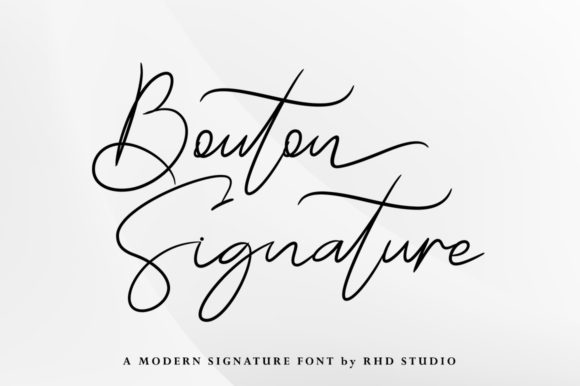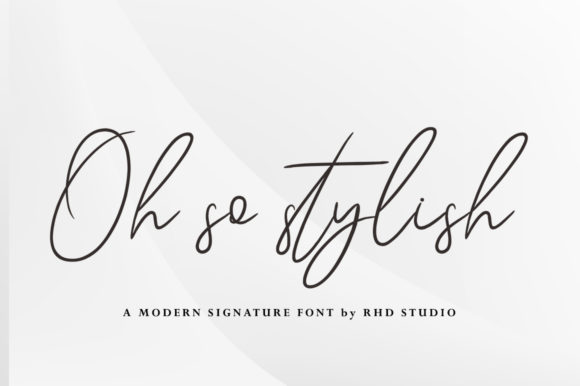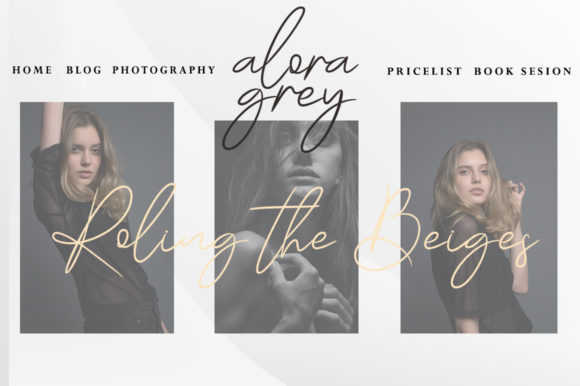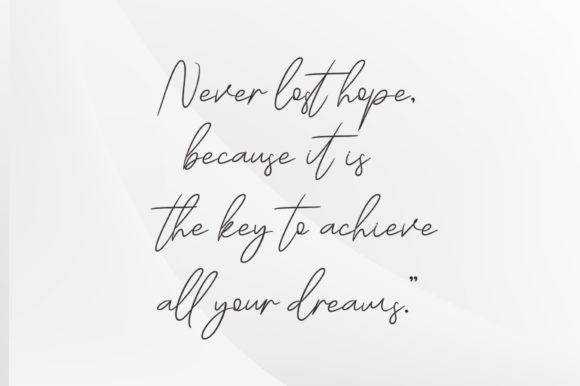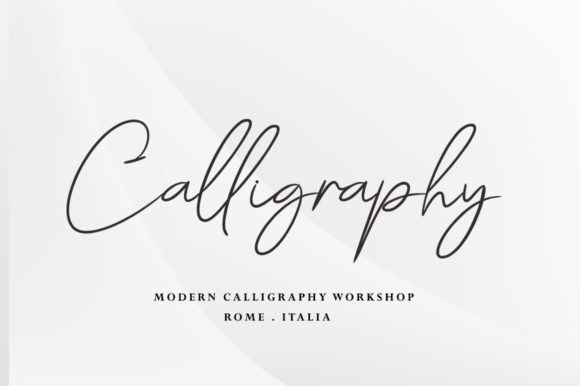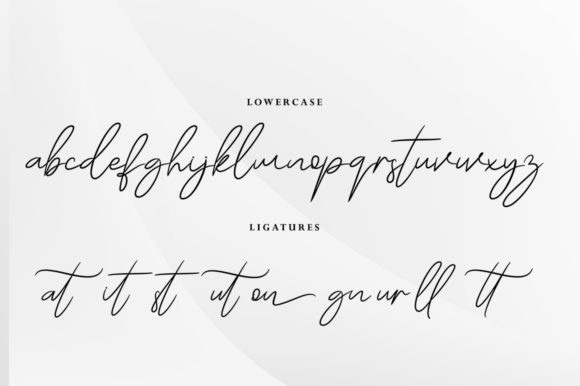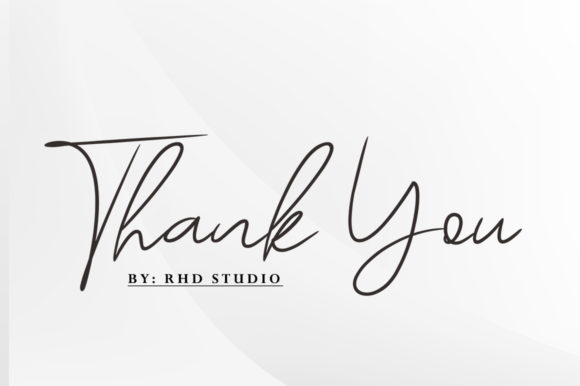
Bouton Signature Font
About Bouton Signature Font
Bouton Signature” is a crème de la crème modern calligraphy font with classic, sophisticated accents. It is perfect for branding, wedding invites and cards.